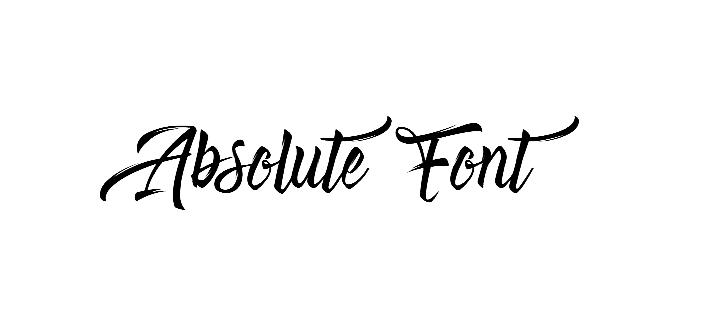
Absolute
Absolute is a script font made by Octotype (2017). The letters have the smooth movement of real pen lettering, which is why even a single name looks special in it. It's a free download, and you can try it with your own text in the preview above first.
You get every letter from A to Z in both cases and all the numbers from 0 to 9, which means Absolute can handle full sentences, dates and prices. Punctuation is limited, so look at the character map if you need a specific symbol. Thanks to its accented letters, it also works for Spanish, French, Portuguese and Italian, not just English.
Think of Absolute for wedding invitations, logos and signature-style headings. Script fonts read best in short bursts, so keep it to names, titles and one-line quotes. Skip all caps: script capitals are drawn to start a word, not to fill one.
Yes. Absolute includes the accented letters needed for Spanish, French, Portuguese and Italian, so it works for more than just English.